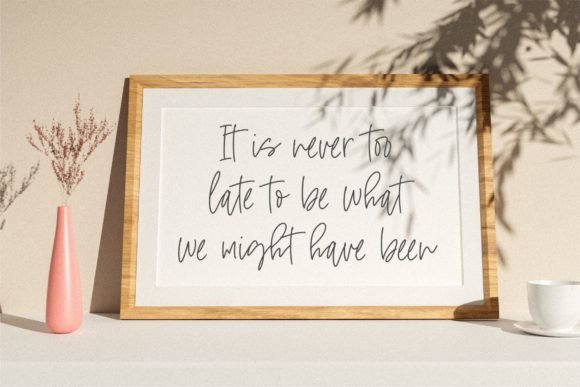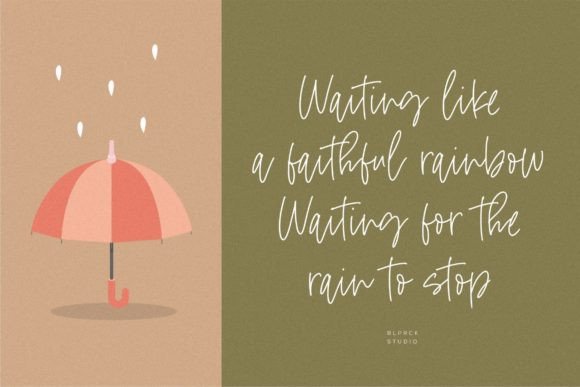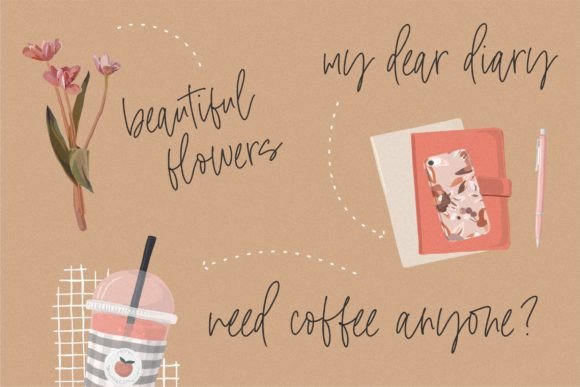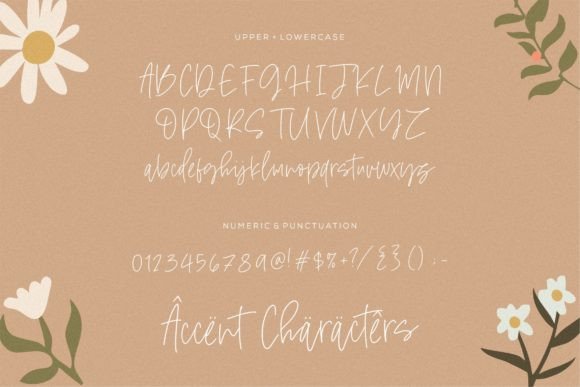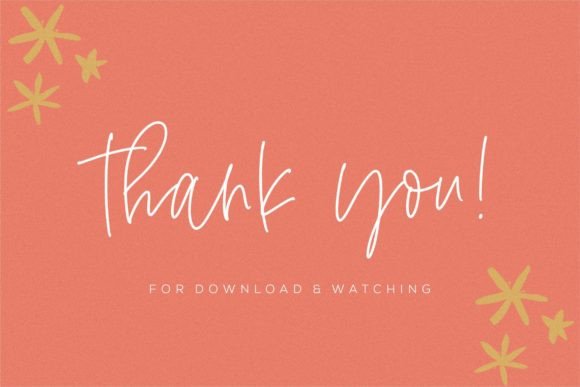
Introducing Esthetic Boots Font: Elevate Your Designs with Elegance and Sophistication
In the world of typography, a font can make or break a design project. When it comes to creating a lasting impression, designers and crafters need a font that exudes elegance, sophistication, and a touch of modernity. This is where Esthetic Boots Font comes in – a modern handwritten font that’s clean, elegant, and perfect for a range of design projects.
The Perfect Blend of Modernity and Timelessness
Esthetic Boots Font boasts smooth, effortless lines that give it a refined and understated sophistication. This font is the perfect choice for designers and crafters who want to create a modern look that’s still timeless in its appeal. Whether you’re working on a logo, branding, invitation, packaging, or any other design project, Esthetic Boots Font is sure to impress.
Crafted with Precision and Care
What sets Esthetic Boots Font apart is the precision and care that has gone into its creation. This font is incredibly versatile and can be used for a wide range of design projects. Its simple yet refined aesthetic makes it perfect for designers and crafters who want to add a touch of elegance to their work.
Esthetic Boots Font is a designer’s dream come true. Its versatility means that it can be used for a variety of projects, including:
- Logos: Create a lasting impression with a custom logo that exudes elegance and sophistication.
- Branding: Establish a strong brand identity with Esthetic Boots Font.
- Invitations: Make your invitations stand out with a font that’s both modern and timeless.
- Packaging: Add a touch of elegance to your packaging with Esthetic Boots Font.
- And more: The possibilities are endless with this versatile font.
Why Choose Esthetic Boots Font?
So, why choose Esthetic Boots Font over other fonts? Here are just a few reasons:
- Elegance and sophistication: Esthetic Boots Font exudes elegance and sophistication, making it perfect for designers and crafters who want to create a lasting impression.
- Versatility: This font is incredibly versatile and can be used for a wide range of design projects.
- Modern yet timeless: Esthetic Boots Font is a modern font that’s still timeless in its appeal, making it perfect for designers and crafters who want to create a look that’s both contemporary and classic.
- Easy to use: Esthetic Boots Font is easy to use and can be easily integrated into your design projects.
In conclusion, Esthetic Boots Font is a modern handwritten font that’s perfect for designers and crafters who want to add a touch of elegance and sophistication to their work. Its smooth, effortless lines and understated sophistication make it a versatile font that can be used for a range of design projects. Whether you’re working on a logo, branding, invitation, packaging, or any other design project, Esthetic Boots Font is sure to make a lasting impression.